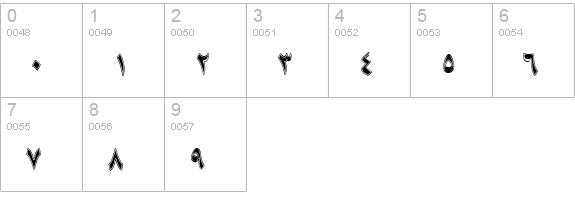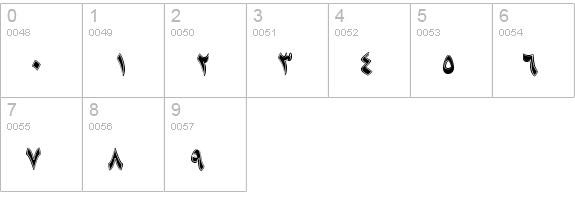
B Sara Font Details
B Sara font is a beautifully designed typeface that exudes elegance and sophistication. With its sleek lines and unique curves, this font is perfect for adding a touch of modernity to any project. The versatility of B Sara font makes it suitable for various design purposes, from branding to editorial design. What sets B Sara font apart is that it is not only aesthetically pleasing but also free to download. You can easily access this exquisite font at FontsMarket.com, where you can unleash your creativity without any cost. Whether you are a graphic designer, web developer, or simply someone looking to enhance their projects, B Sara font is a must-have in your font collection. Download it now and elevate your designs with this stunning typeface.